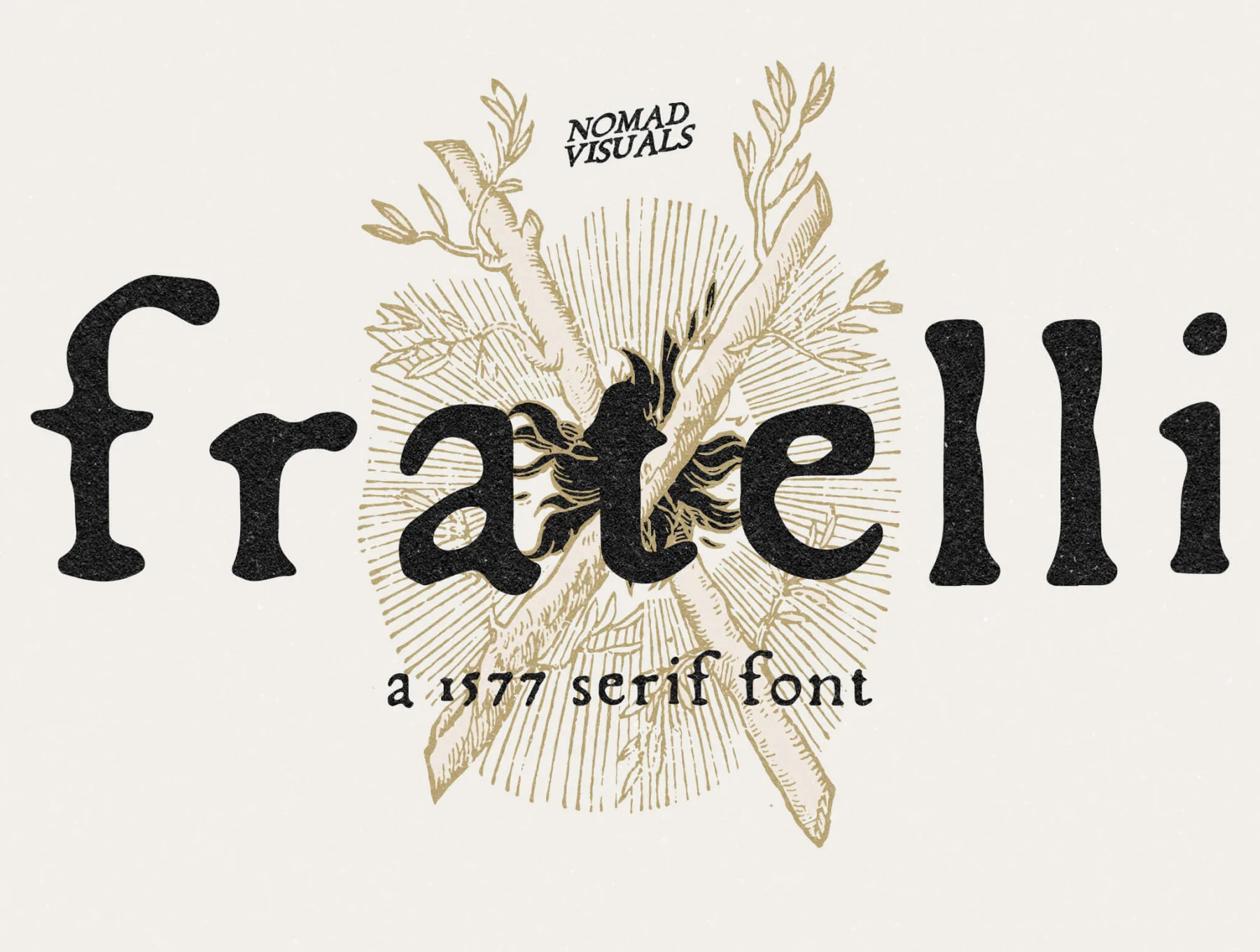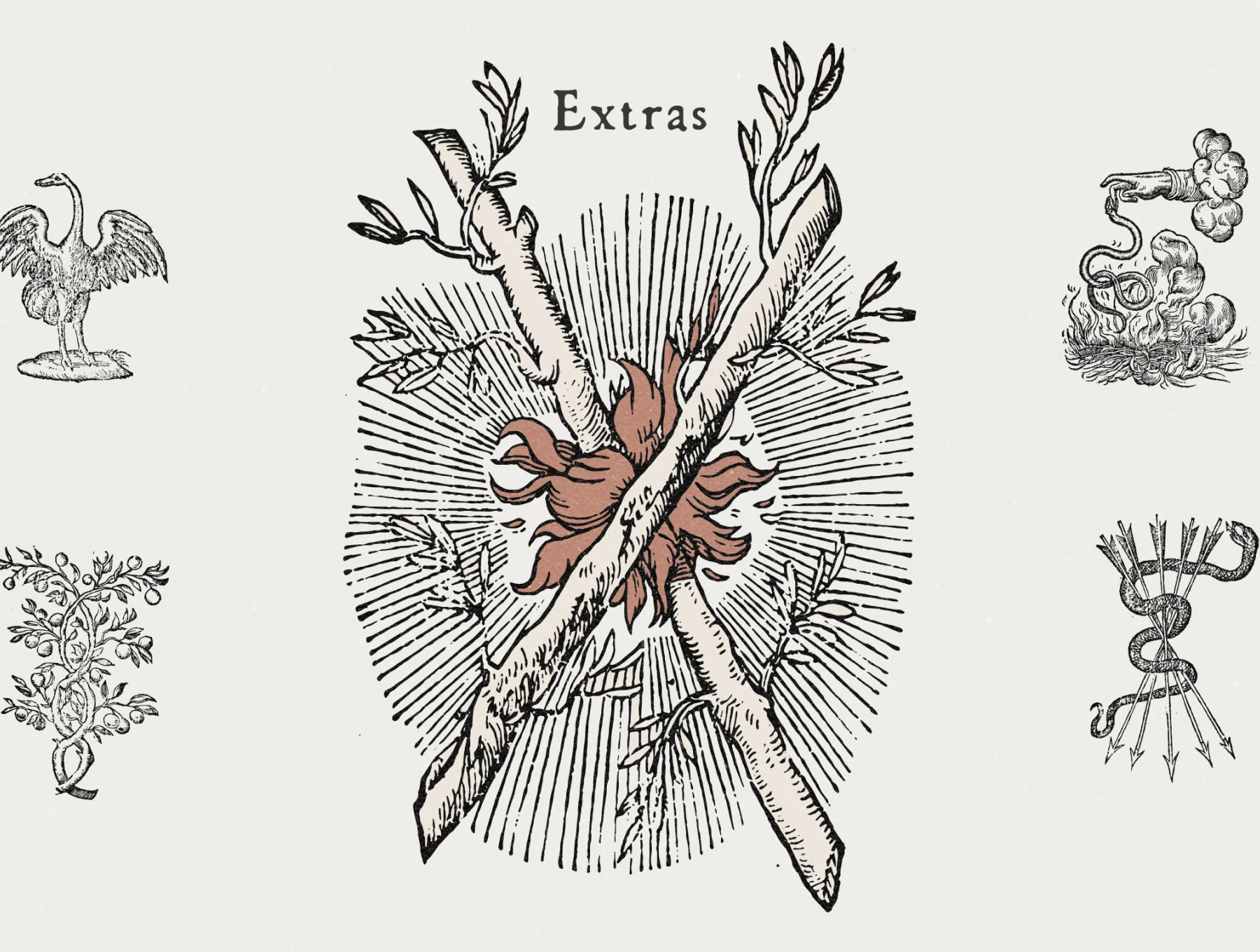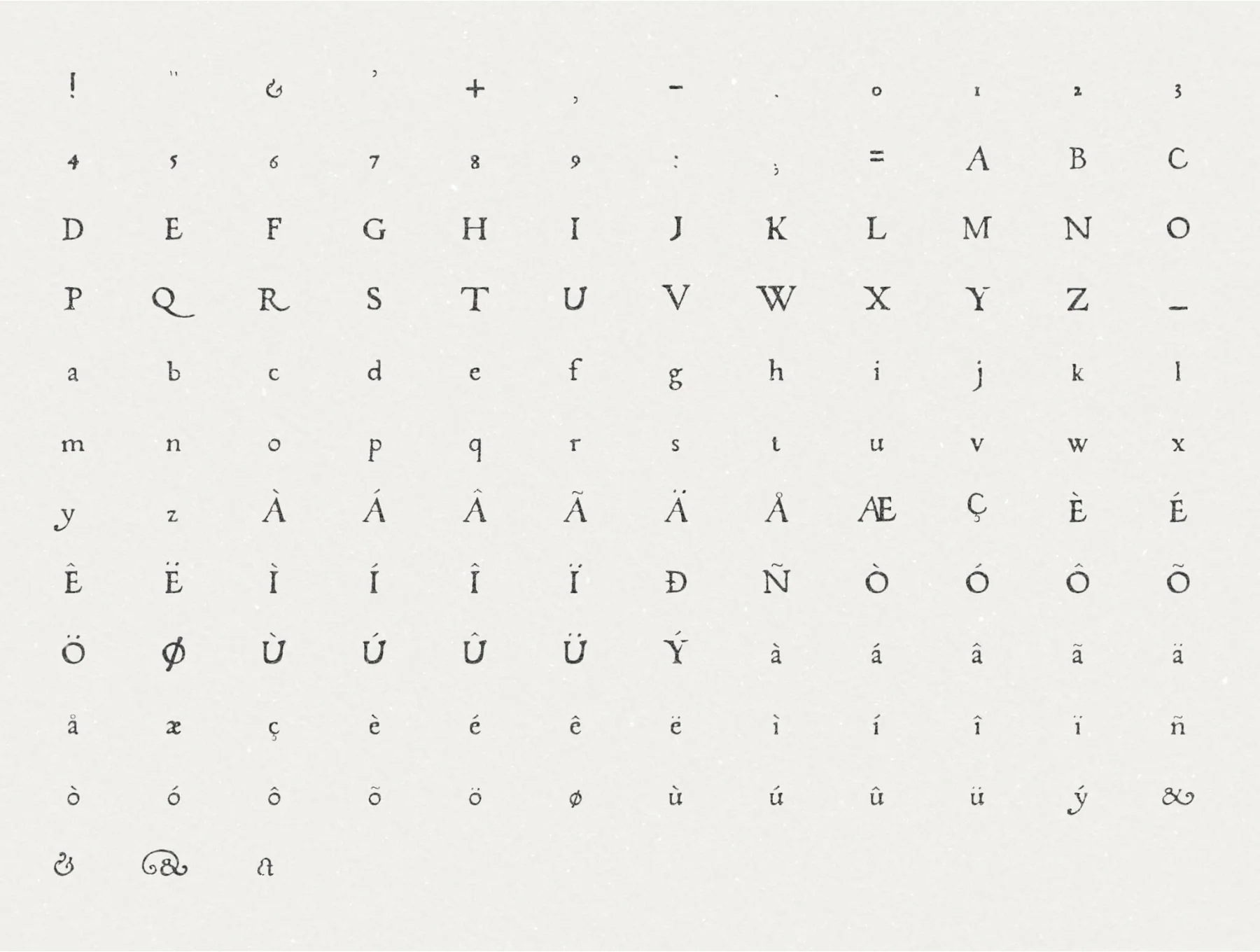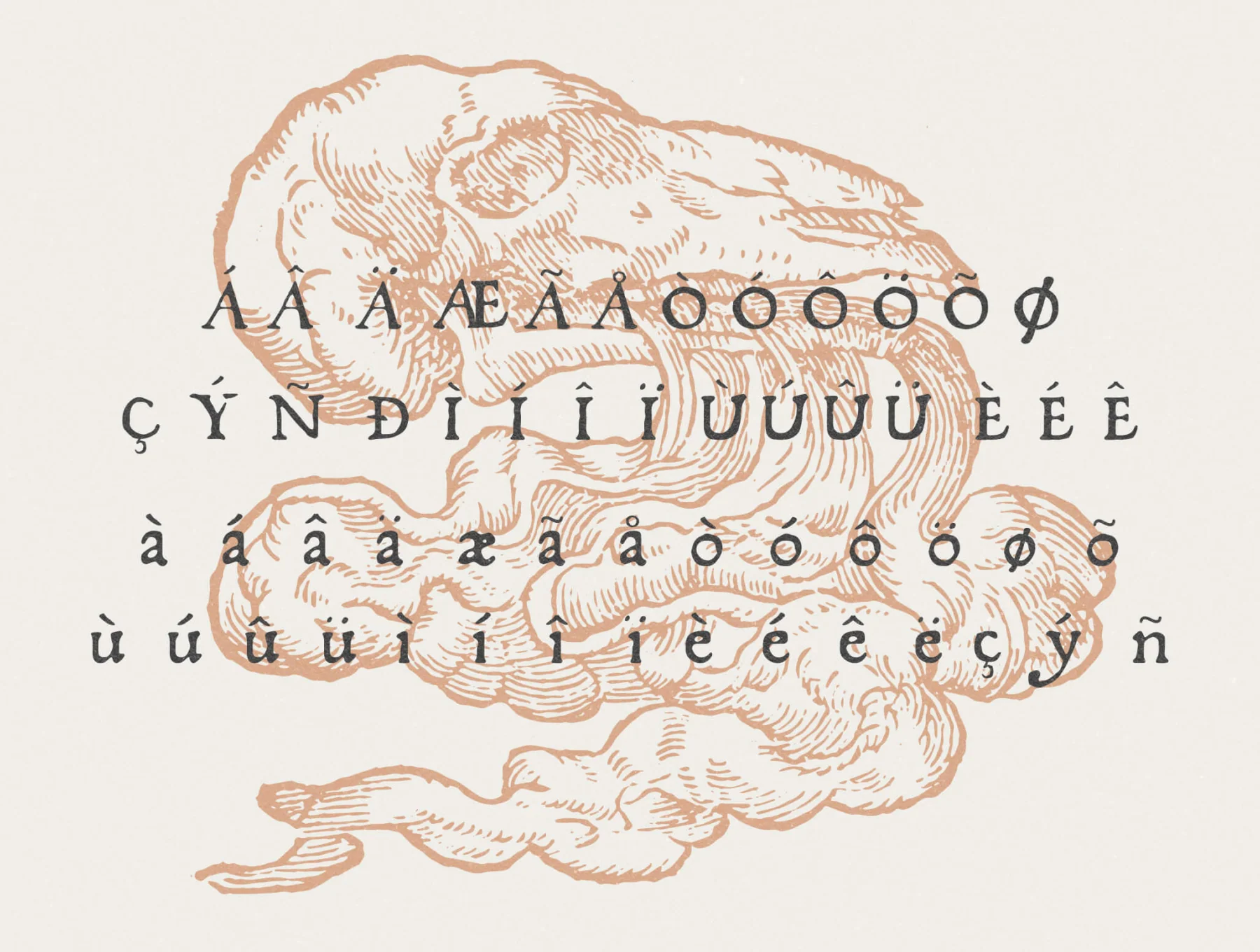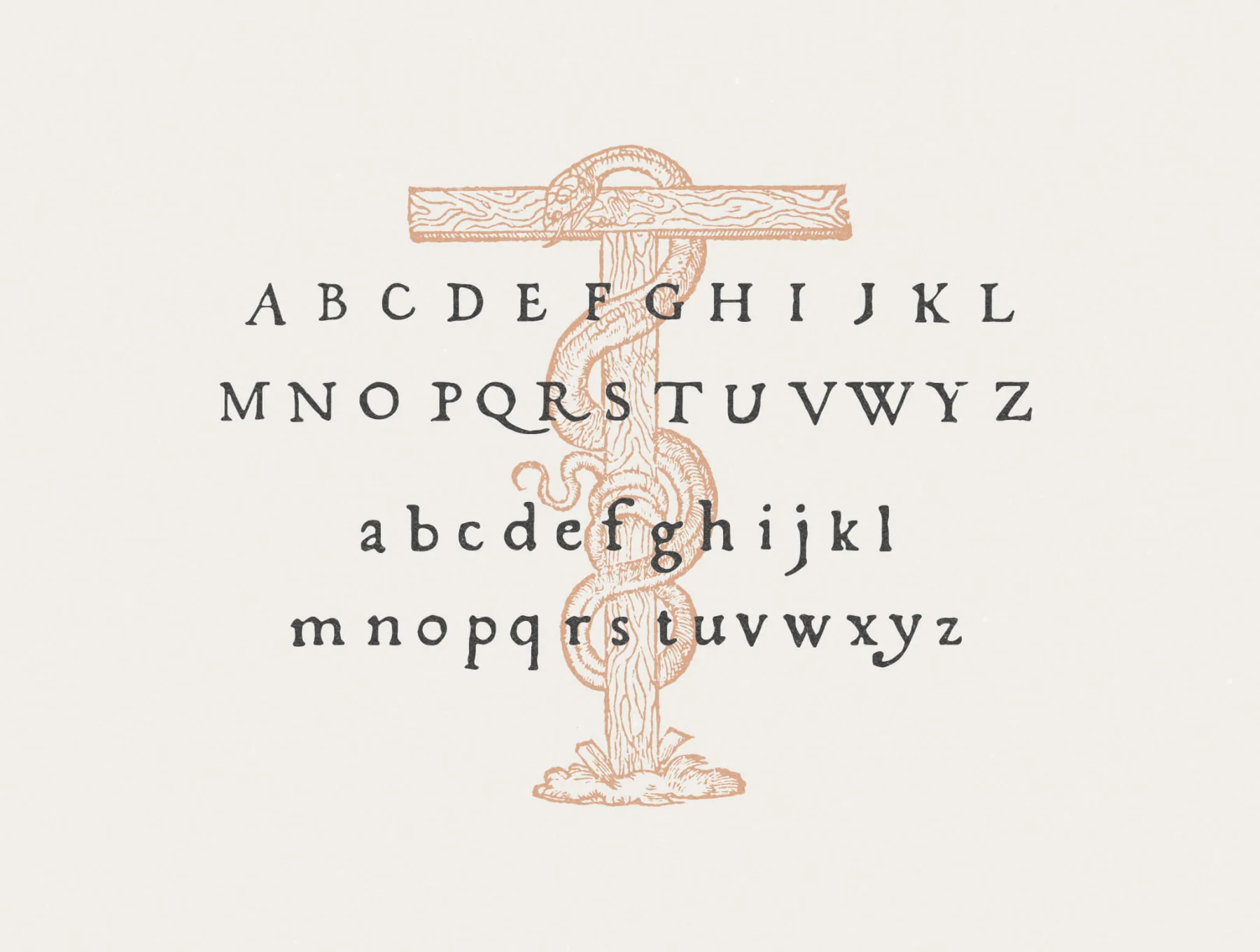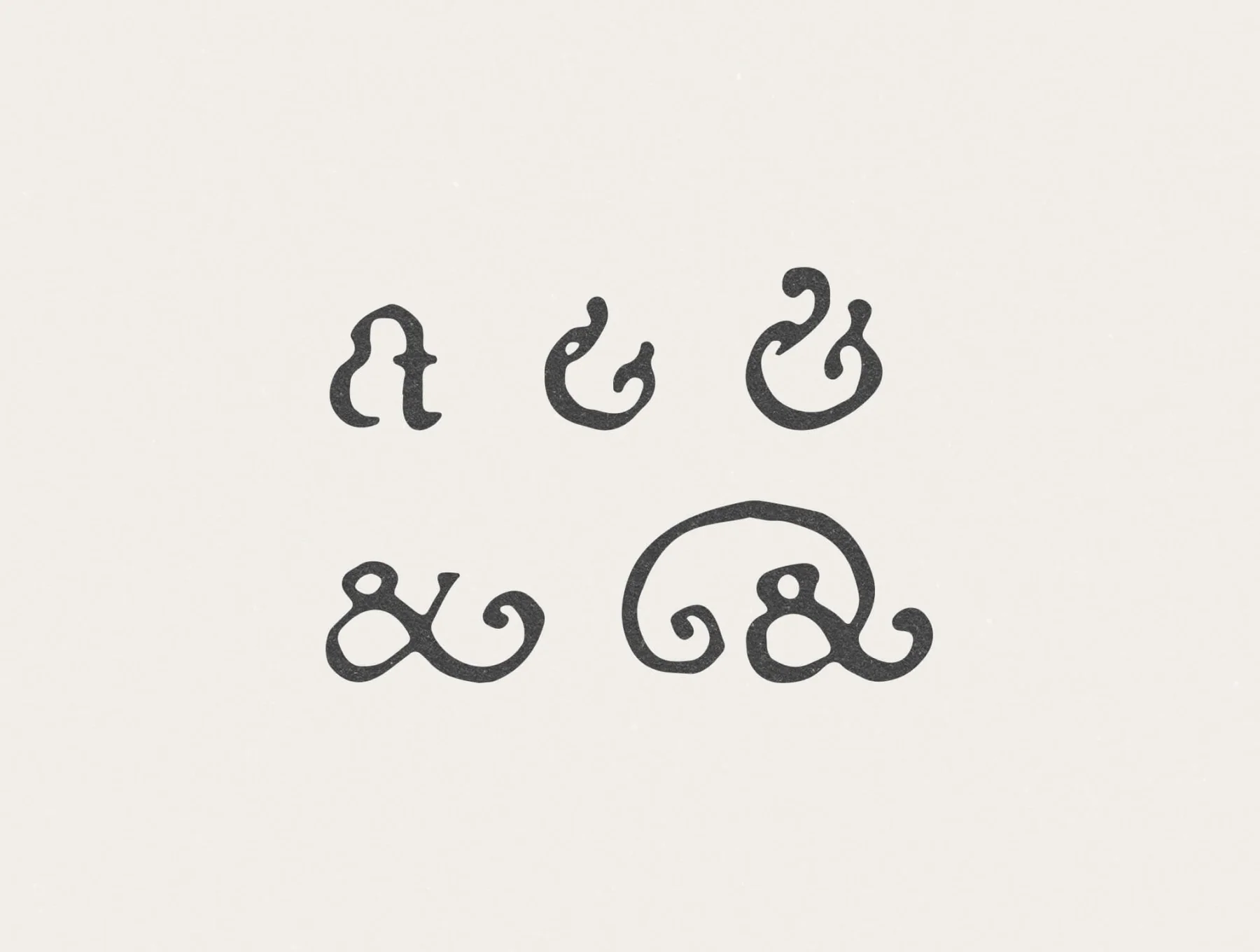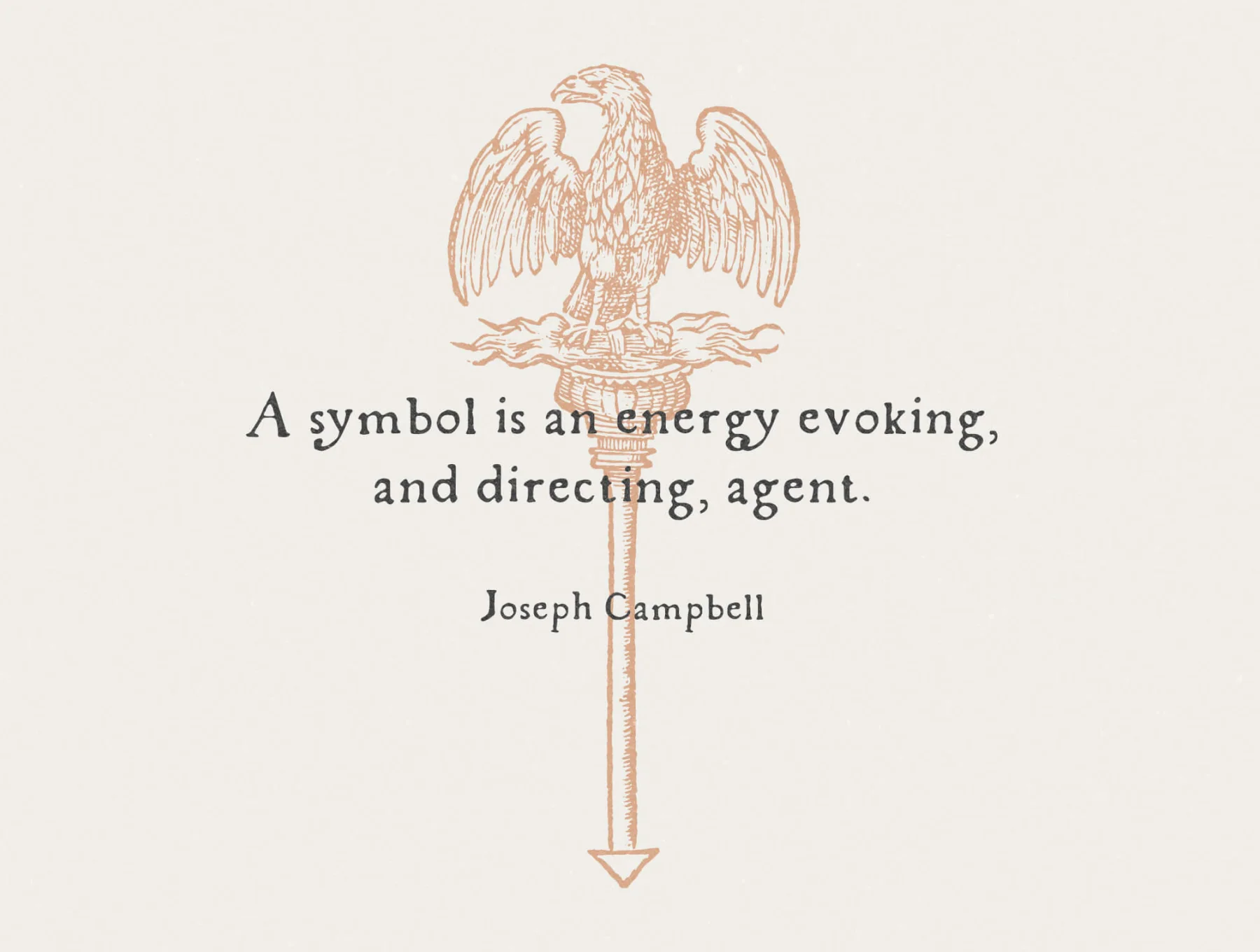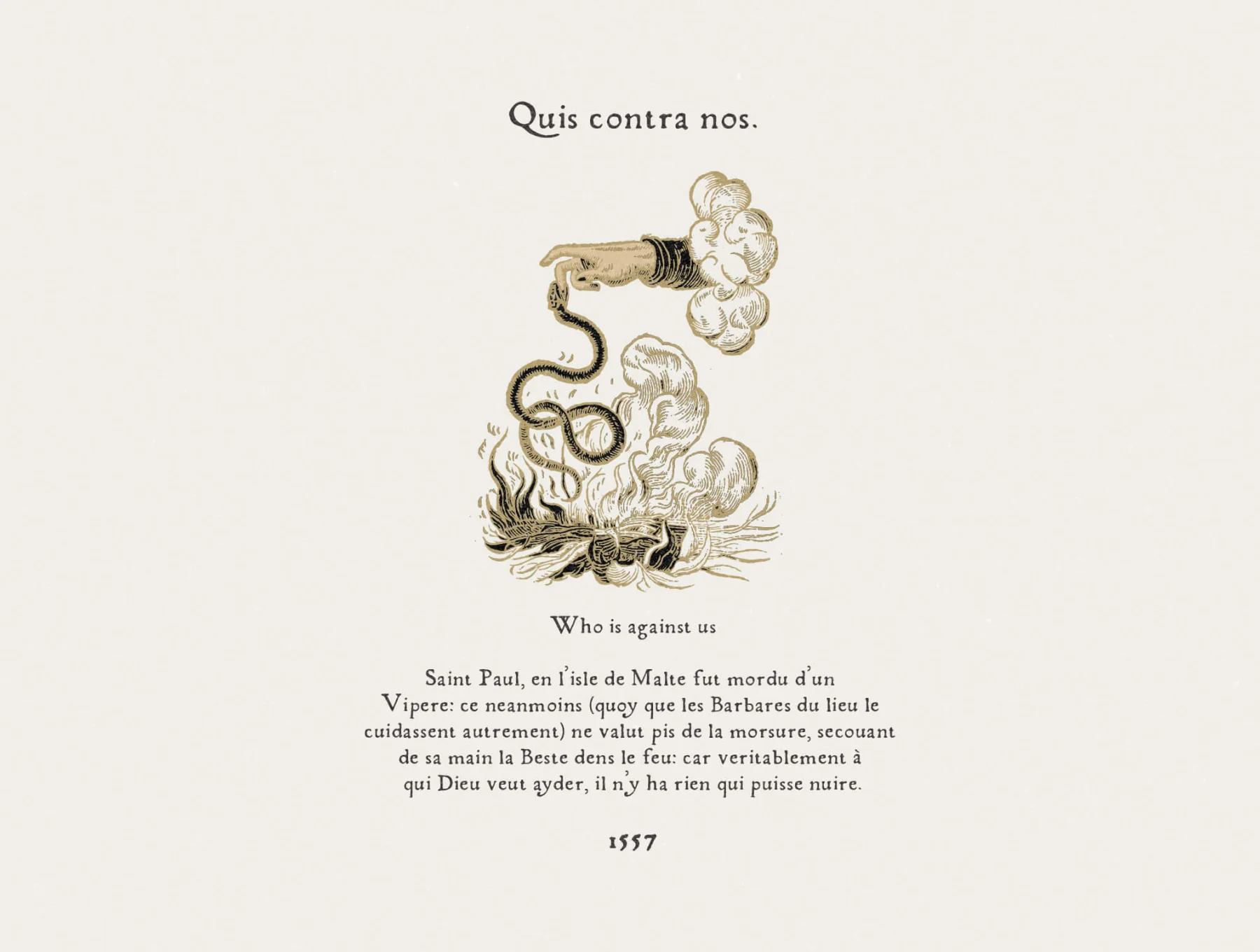
Fratelli – A 1577 Serif Font + Vintage Illustrations
Serif type drawn from a 1577 alchemical volume, with a rugged, uneven character and old-world feel
Genuine serif typeface drawn from a 1577 volume
Preserves vintage print imperfections
Contains capitals, small letters, numerals, and punctuation
Fratelli is a typeface digitized from a 1577 alchemy book. Lost glyphs were recreated to retain the rough texture and irregular appeal of early print. It offers upper and lowercase, numerals, punctuation, and multilingual coverage, plus five bonus images from Claude Paradin’s Symbola Heroica, Lyon 1551.